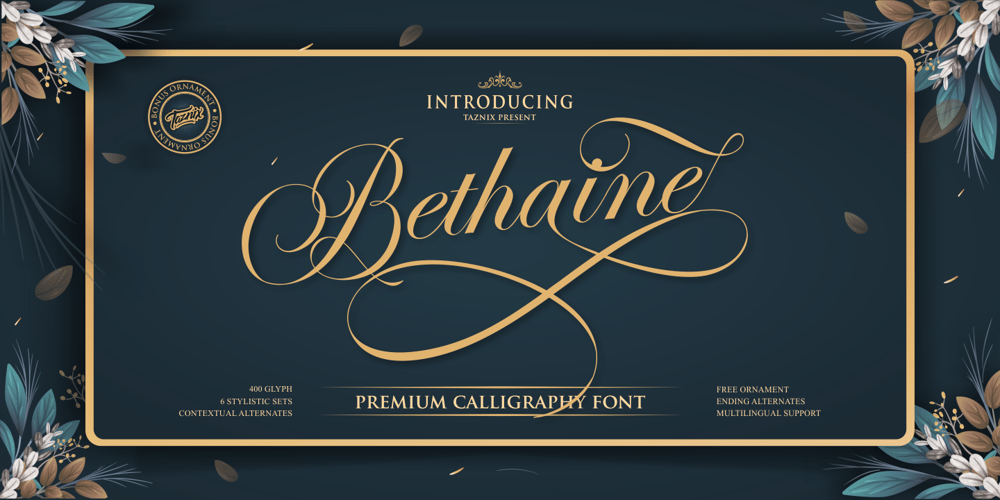
Bethaine
Bethaine font
Bethaine Font Family was designed by Ricky Hartasni and published by Taznix Creative. Bethaine contains 1 styles and family package options. Bethaine is font with a exclusive style and a touch of classic, inspired by the handwriting of ancient manuscripts. Carefully designed to work together in harmony that makes it very suitable for wedding media, book covers, greeting cards, logos, branding, business cards and certificates, even for any design work that requires a classic, formal or luxurious.Bethaine Typeface includes a full set of character A-Z, as well as multi-lingual support, currency figures, numerals, and punctuation.What’s Included : Buonapati (OTF) Standard glyphs Ligature Works on PC & Mac Simple installations Accessible in the Adobe Illustrator, Adobe Photoshop, Adobe InDesign, even work on Microsoft Word. PUA Encoded Characters – Fully accessible without additional design software. Fonts include multilingual support for; ä ö ü Ä Ö Ü ß ¿ ¡ Hope you enjoy with our font!Taznix